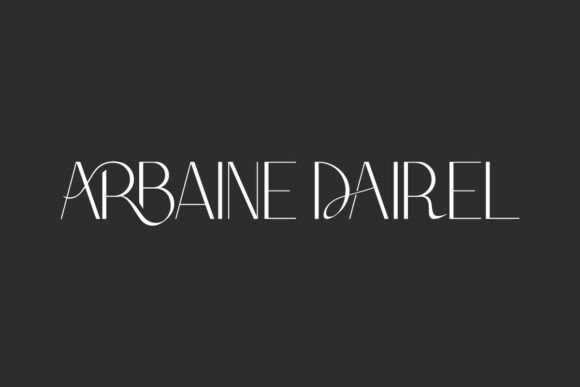
The Perfect Font for Elevating Your Designs
Do you remember that moment when you finally find the perfect font to elevate your design from ordinary to extraordinary? For designers, this moment is a game-changer. It’s the moment when every element comes together in perfect harmony, and the message shines through with clarity and style.
Meet Arbaine Dairel Font, a stunning sans-serif font that exudes elegance and sophistication. With its beautifully connected letters, this font creates a refined and classy look that’s perfect for any project. Whether you’re working on an advertisement, custom design, invitation, or magazine cover, Arbaine Dairel Font is an ideal choice. Its versatility and modern aesthetics make it a valuable asset for designers, allowing them to create stunning visual content that captures the audience’s attention.
Arbaine Dairel Font Key Features
- Font Family: Arbaine Dairel is a modern sans-serif font family.
- Font Size: Arbaine Dairel is available in 7 font weights, ranging from Light (300) to Bold (900).
- Unique Characteristics: Arbaine Dairel features a unique blend of modern and minimalist design elements, making it suitable for a wide range of applications, from corporate branding to digital interfaces.
Review: Arbaine Dairel Font
Overall, I found the Arbaine Dairel font to be a visually appealing addition to any project. ✨ The elegant and sophisticated design makes it suitable for high-end branding, magazines, and fashion-related materials. The subtle flair and cursive flair add a touch of sophistication to the text.
However, I did encounter some limitations while working with this font. ⚠️ The font can be quite delicate and may require additional settings to achieve the desired effect. Additionally, the font does not support bold or italic styles, which may be a drawback for some designers.
Here are some key points to consider:
- ✨ Elegant and sophisticated design, perfect for high-end branding and fashion-related materials
- ✨ Subtle flair and cursive flair add a touch of sophistication to the text
- ⚠️ Delicate design may require additional settings to achieve the desired effect
- ⚠️ No support for bold or italic styles
Overall, I would recommend the Arbaine Dairel font for designers who are looking for a unique and sophisticated font to add a touch of elegance to their projects. However, it may not be the best choice for designers who require a more versatile font that supports a wide range of styles and settings.
Tips for Getting the Most Out of Arbaine Dairel Font
Here are some tips for getting the most out of Arbaine Dairel Font:
- Combine Arbaine Dairel Font with other fonts to create a unique and eye-catching design.
- Use Arbaine Dairel Font to create headings, titles, and emphasis in your designs.
Here are some common use cases for Arbaine Dairel Font:
- Event branding and marketing
Alternatives to Arbaine Dairel Font
Montserrat is a sans-serif font designed by Julieta Ulanovsky. It’s a geometric and urban font inspired by the city of Montserrat in Argentina. Montserrat is perfect for headlines, titles, and display text, and is commonly used in branding and advertising. Compared to Arbaine Dairel, Montserrat has a more aggressive and geometric feel, with a higher contrast and a more dramatic x-height.